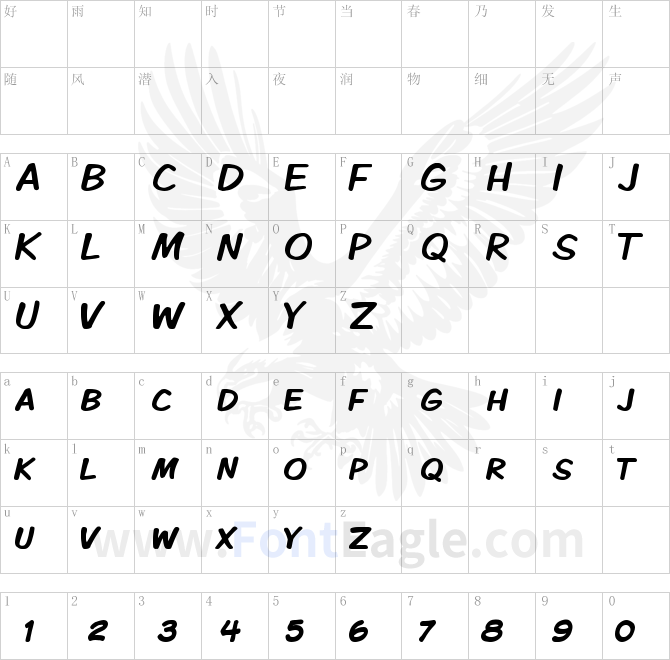
Komika-Display-Kaps is a great font, widely used in graphic design, single-page menu design, poster design and other fields, and is deeply loved by designers.Komika-Display-Kaps download.